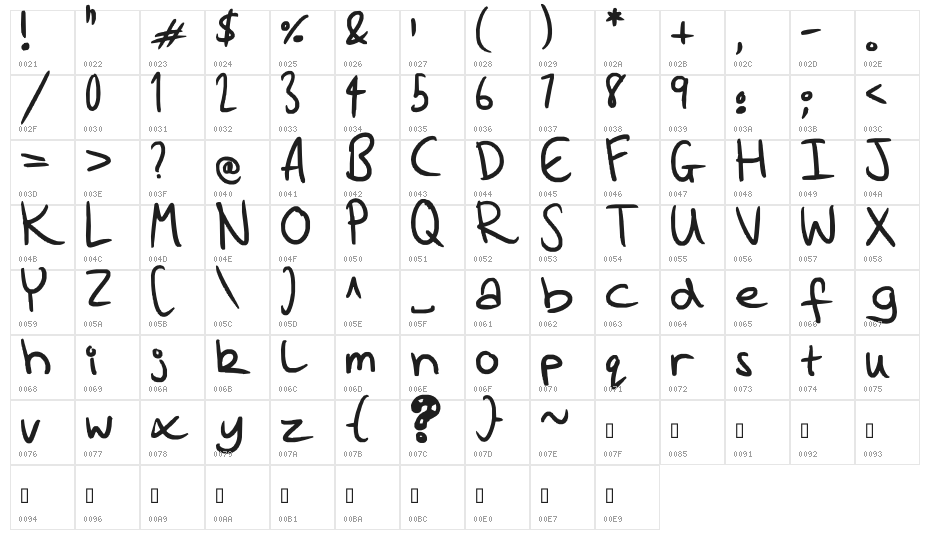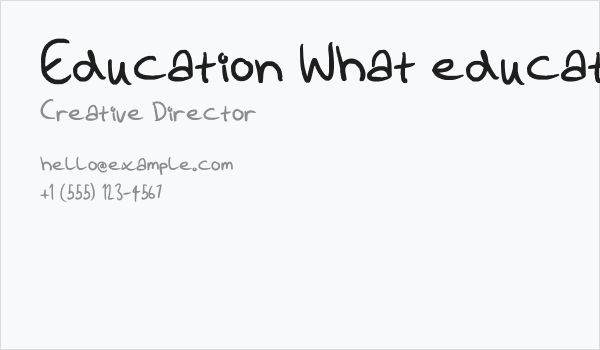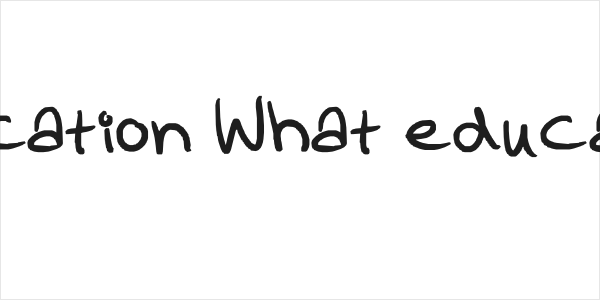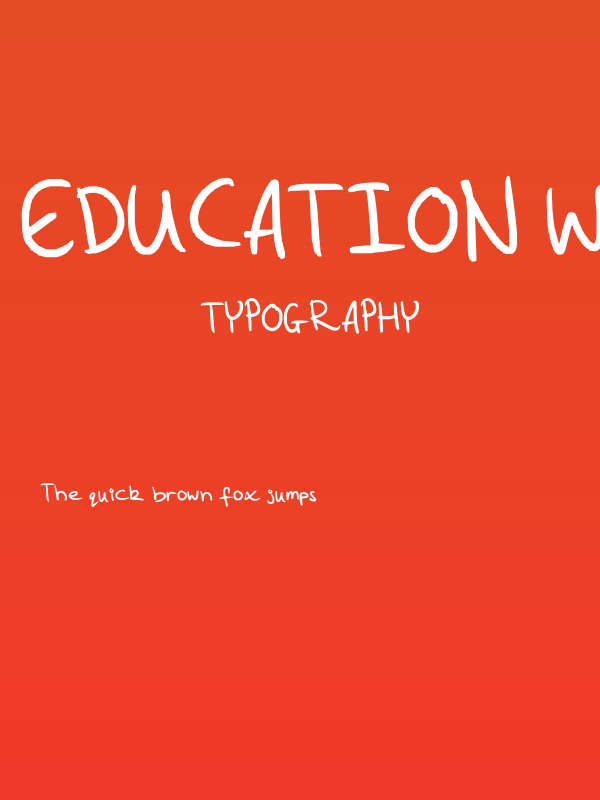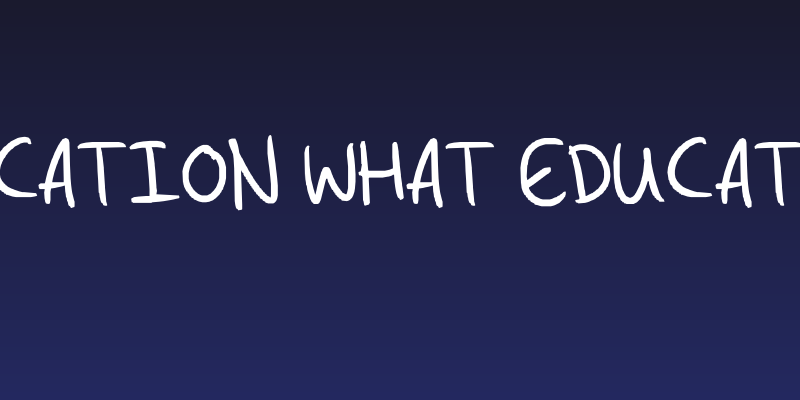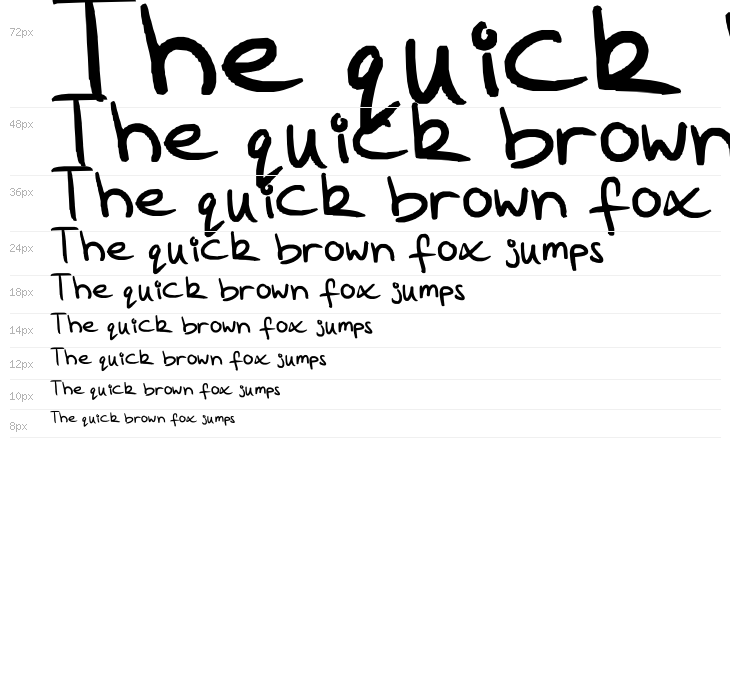
Education What education Font
Education What education Description
This font features a playful and casual handwritten style, characterized by its irregular strokes and informal appearance. The letters have a natural flow, mimicking the look of handwriting with a marker or brush pen. The uppercase and lowercase letters maintain a consistent style, with rounded edges and a slightly uneven baseline, adding to its charm. The numerals and special characters follow the same informal aesthetic, making the font versatile for creative projects. Its unique personality makes it suitable for designs that require a personal touch.
| Proposed Projects | Ideal for greeting cards, children's books, casual branding, and social media graphics. |